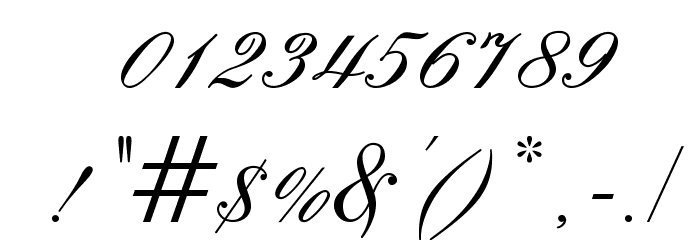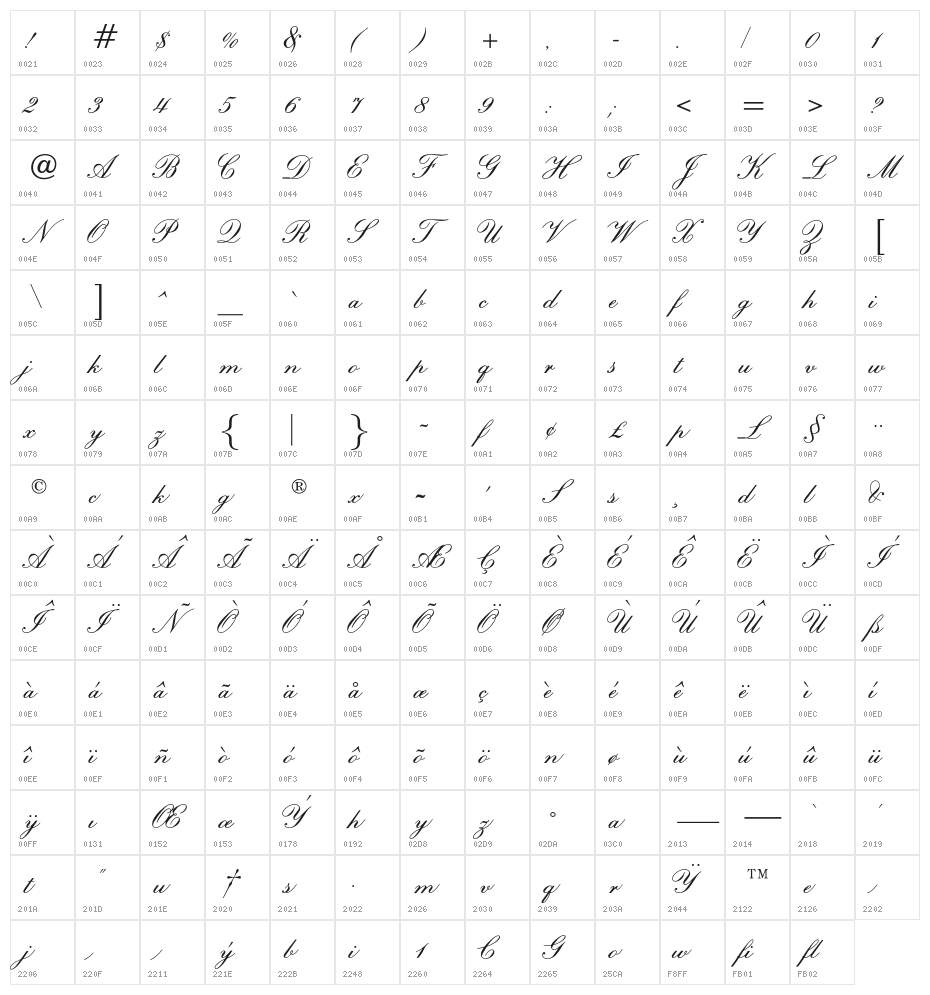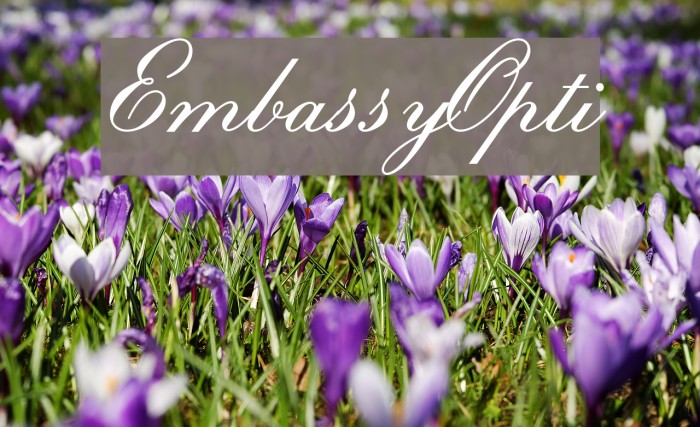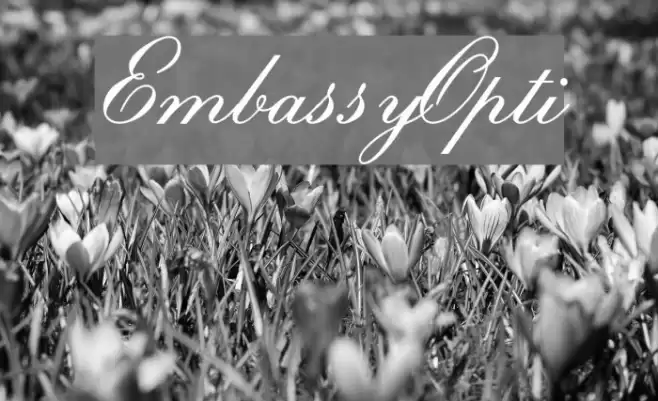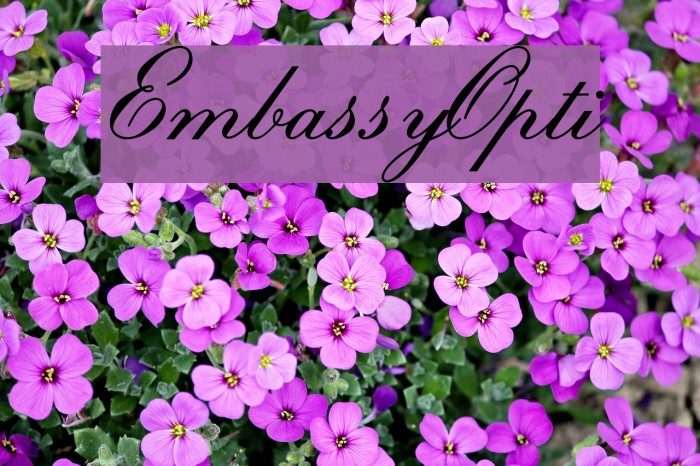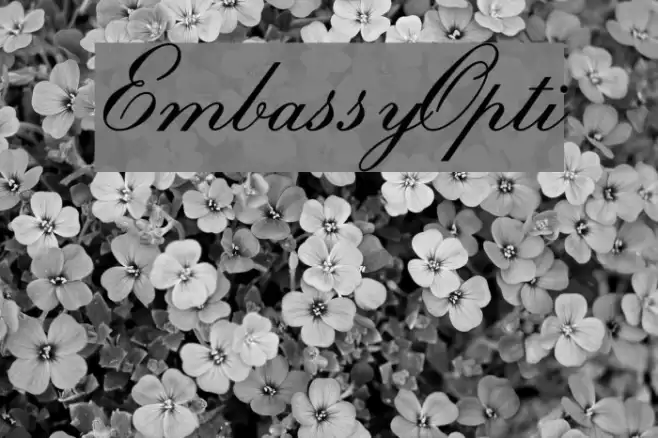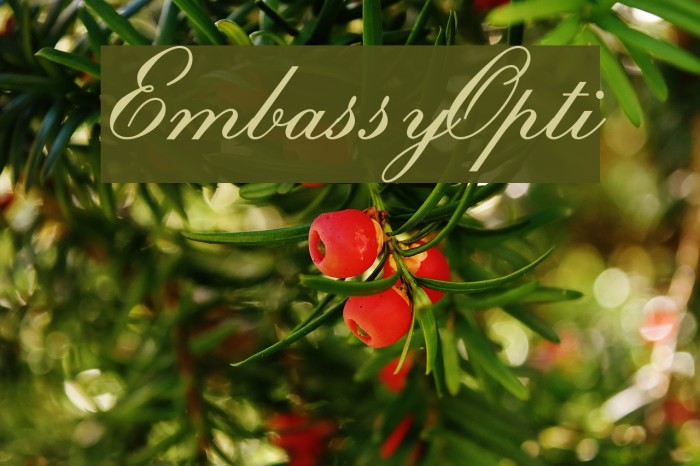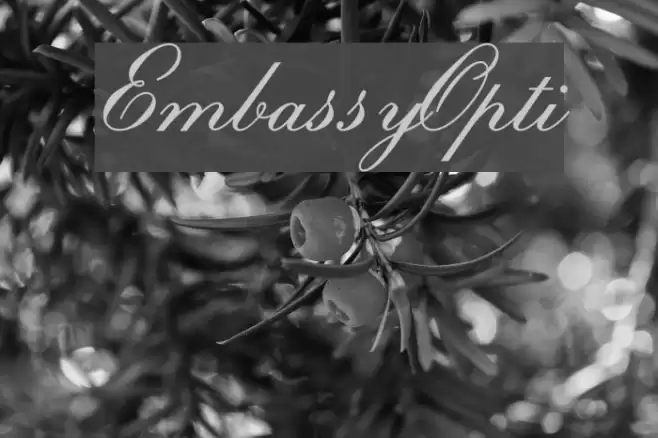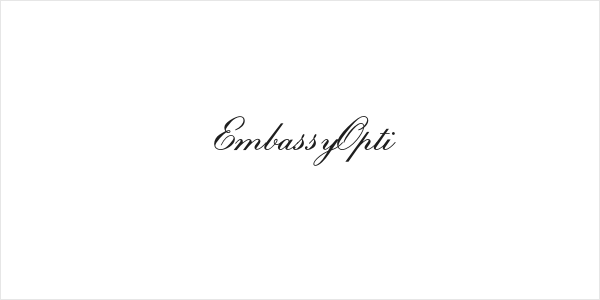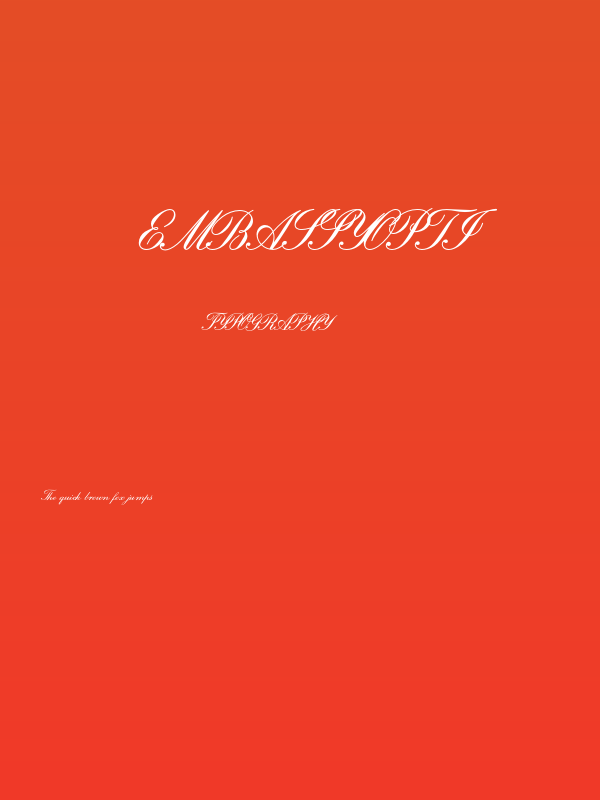
EmbassyOpti Font
EmbassyOpti Description
This elegant script font exudes a classic and sophisticated charm, characterized by its flowing, cursive letterforms. The uppercase letters are ornate, with intricate loops and flourishes, while the lowercase letters maintain a graceful continuity. The numerals are styled to match the cursive elegance, providing a cohesive look across all characters. The special characters are equally decorative, enhancing the font's overall aesthetic. This font is ideal for projects that require a touch of elegance and formality, such as wedding invitations, certificates, and upscale branding.
| Use Case | Headlines, Invitations, Branding |
| Proposed Projects | Wedding invitations, formal event programs, luxury branding, certificates. |